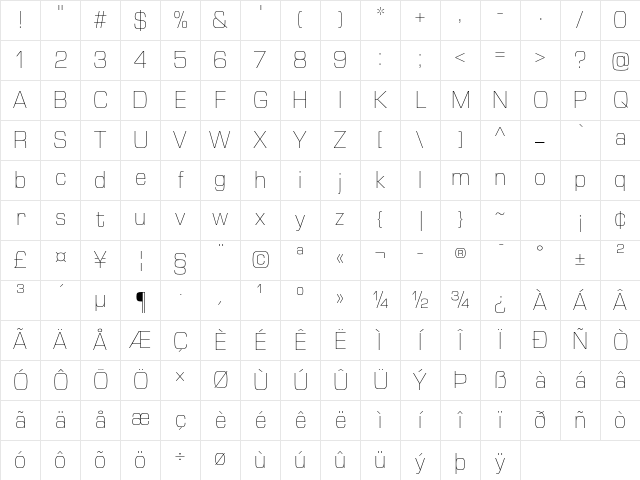
Complete Eurostile Next LT Pro Ultra Light glyph index. Displaying only characters natively supported by Eurostile Next LT Pro Ultra Light font.
Eurostile Next LT Pro is a composed and adaptable typeface that performs quietly and consistently across a wide range of design contexts. Its slender proportions lend an understated elegance to any composition.